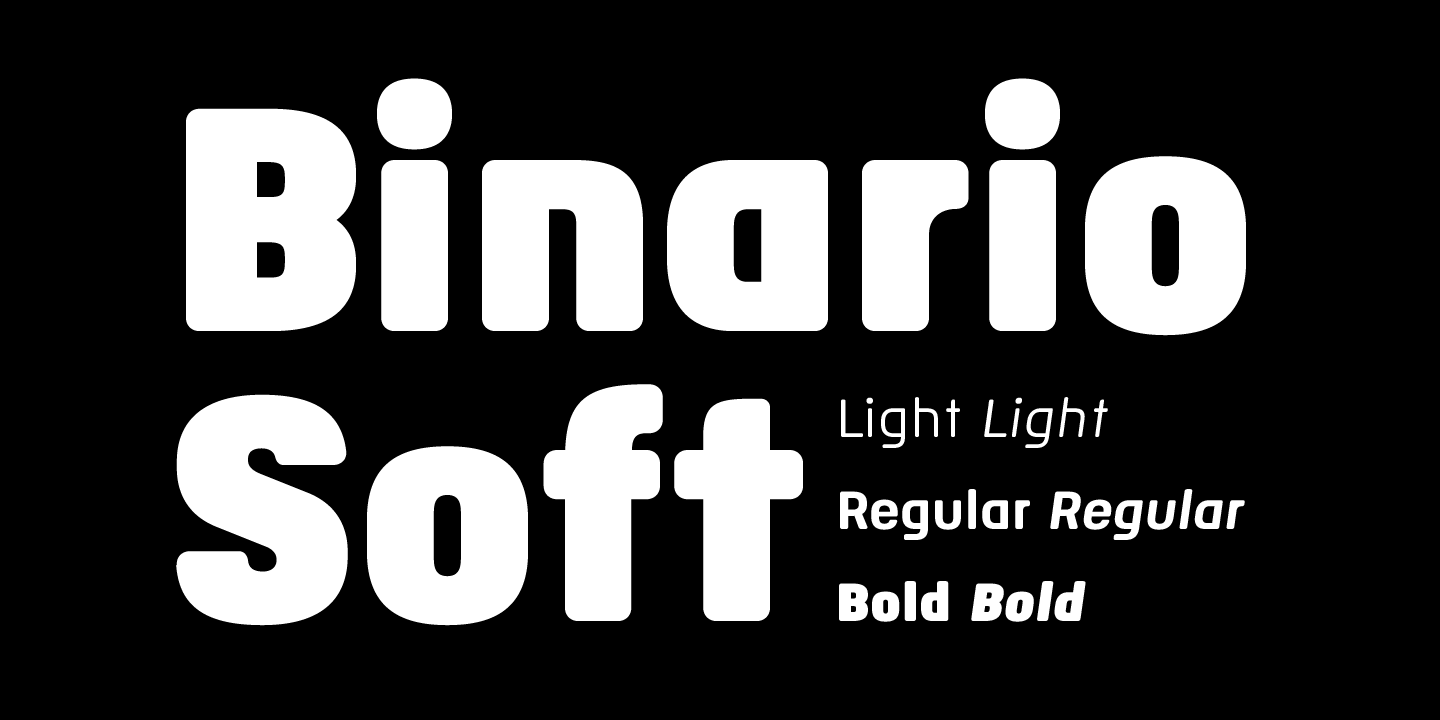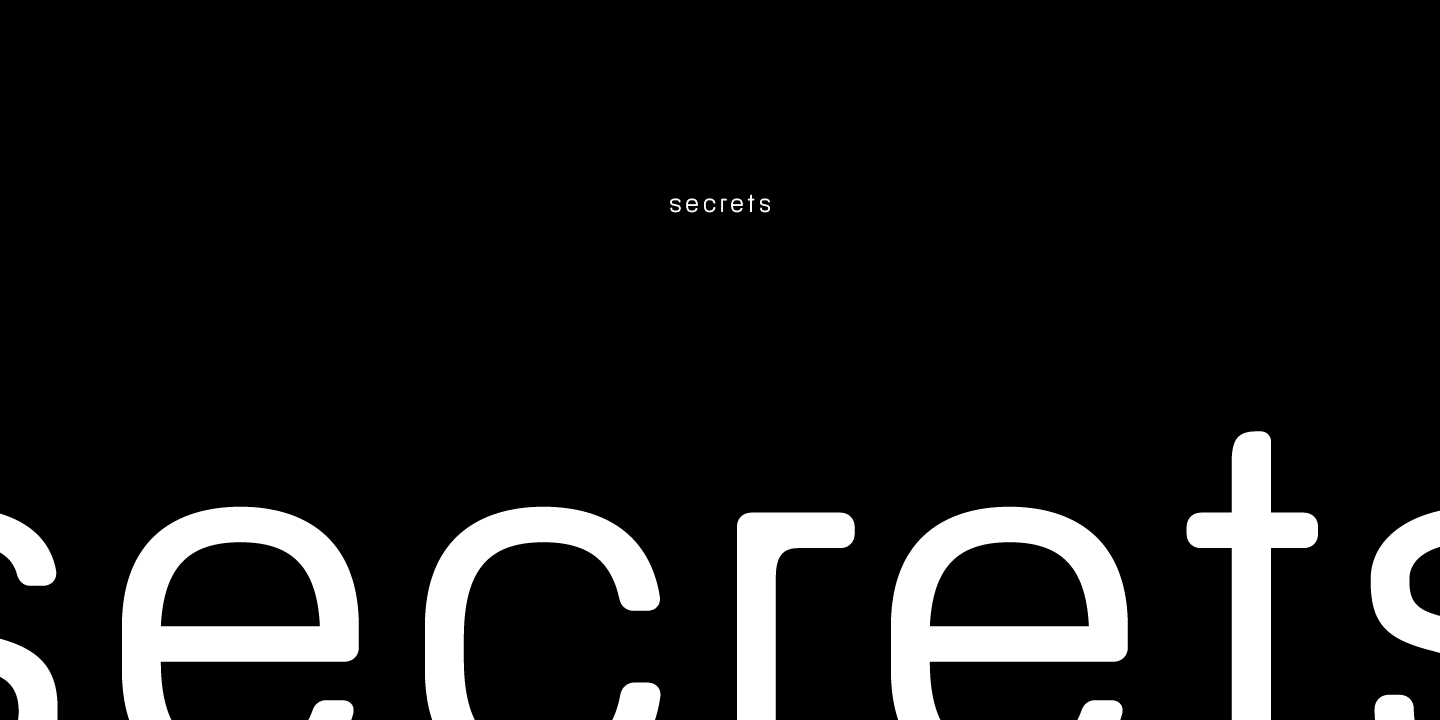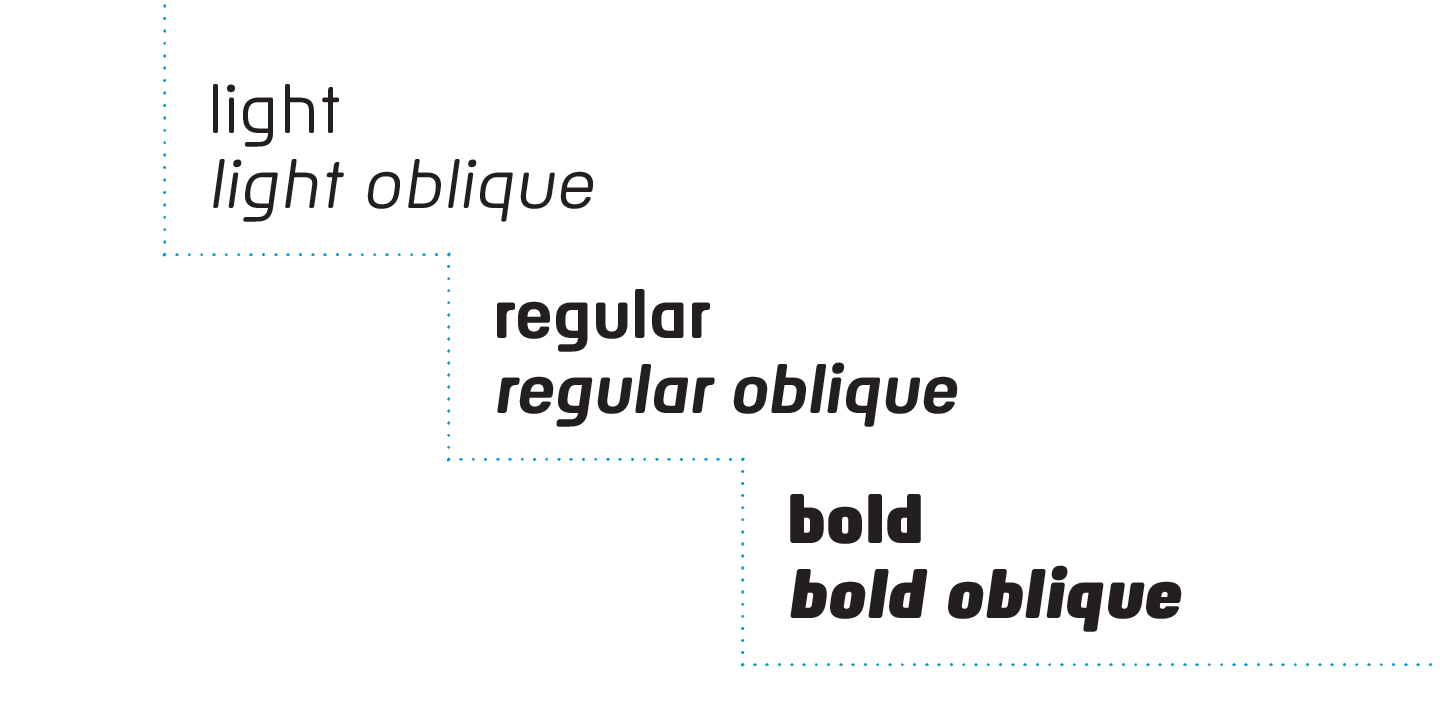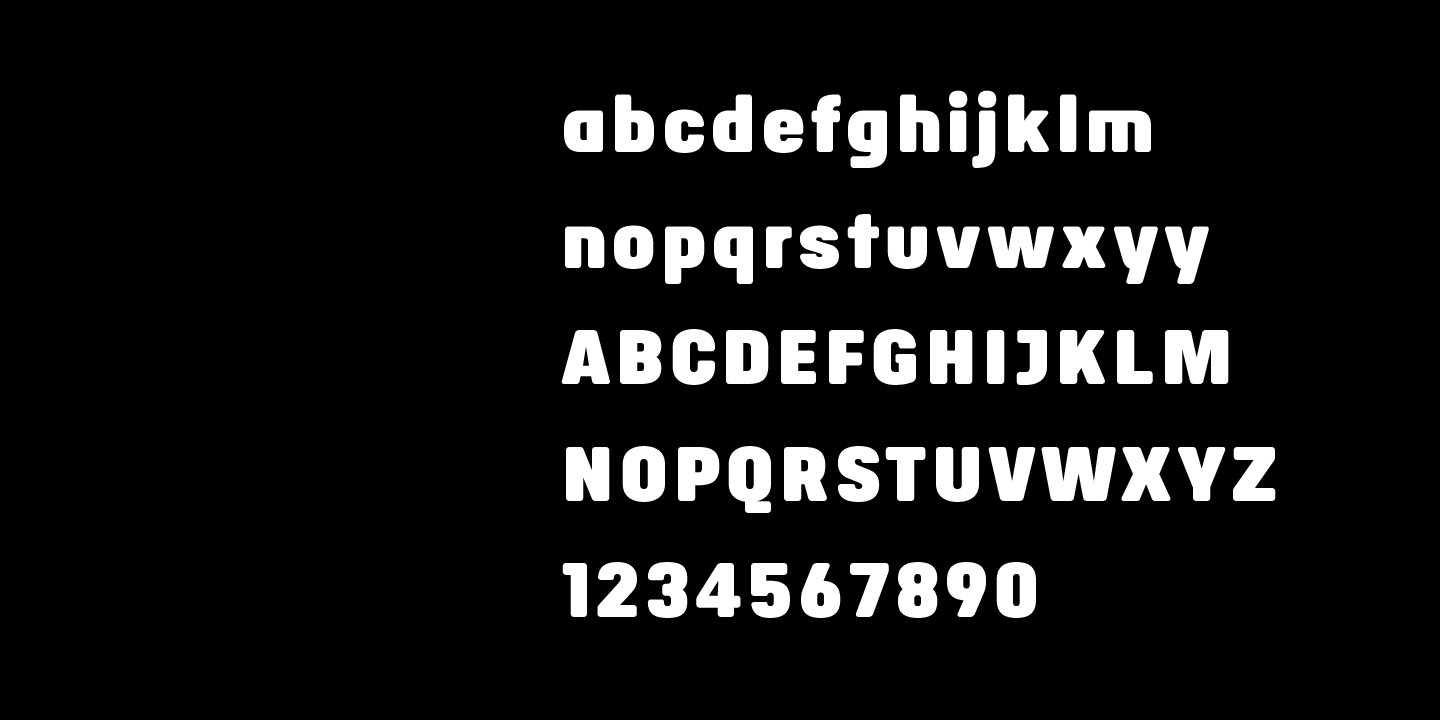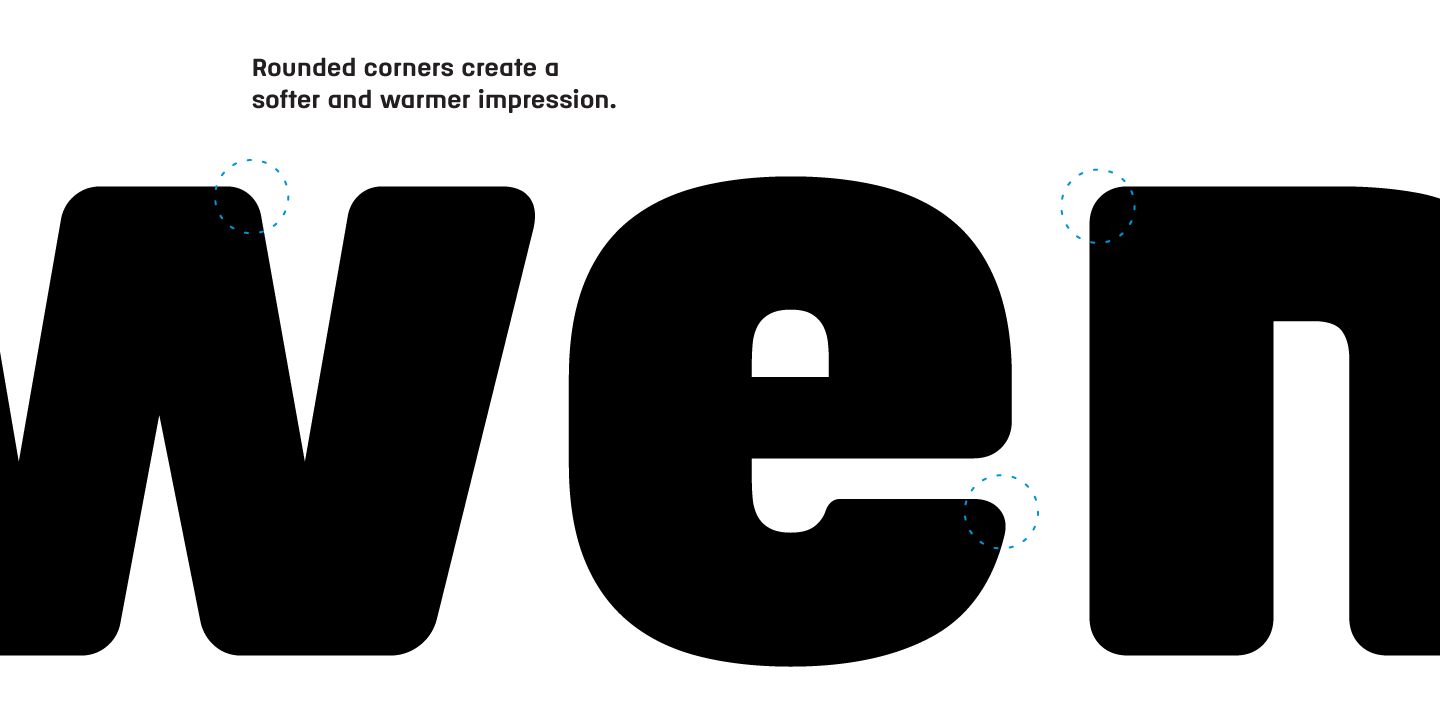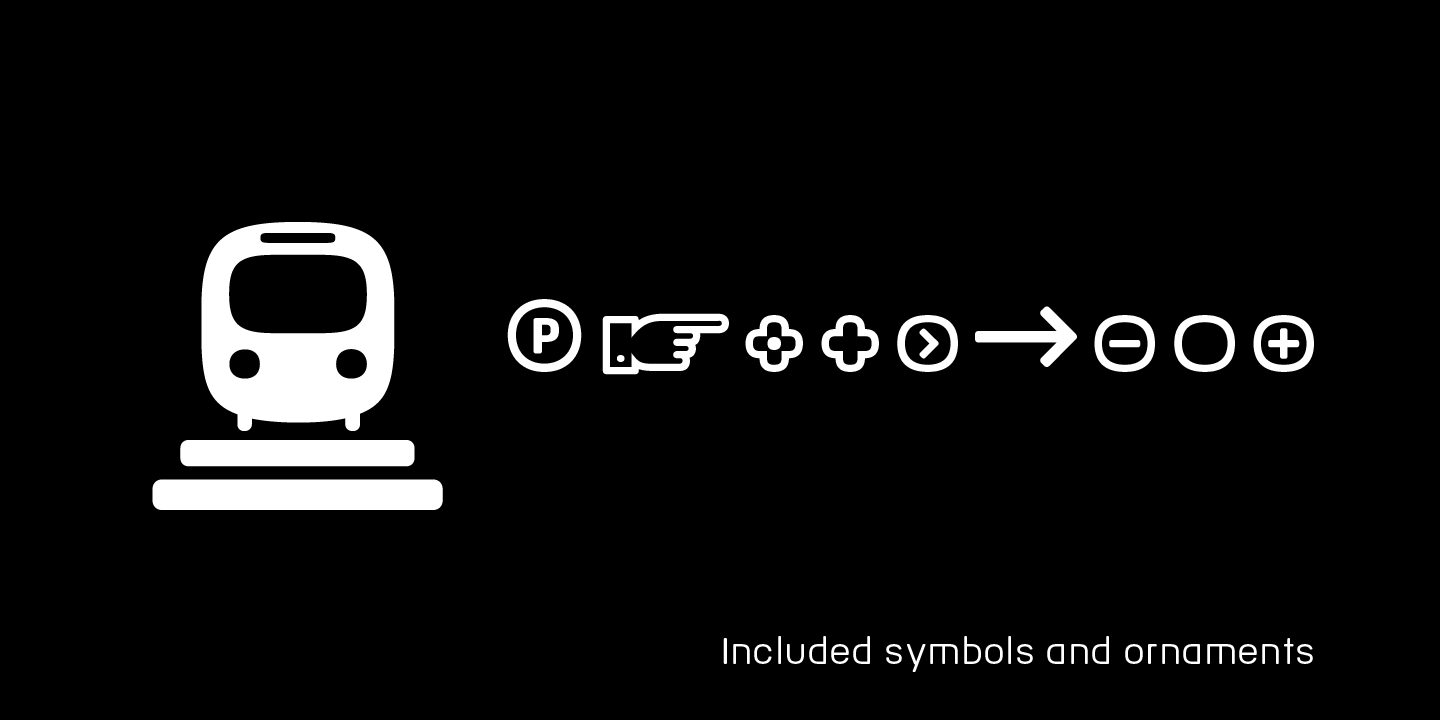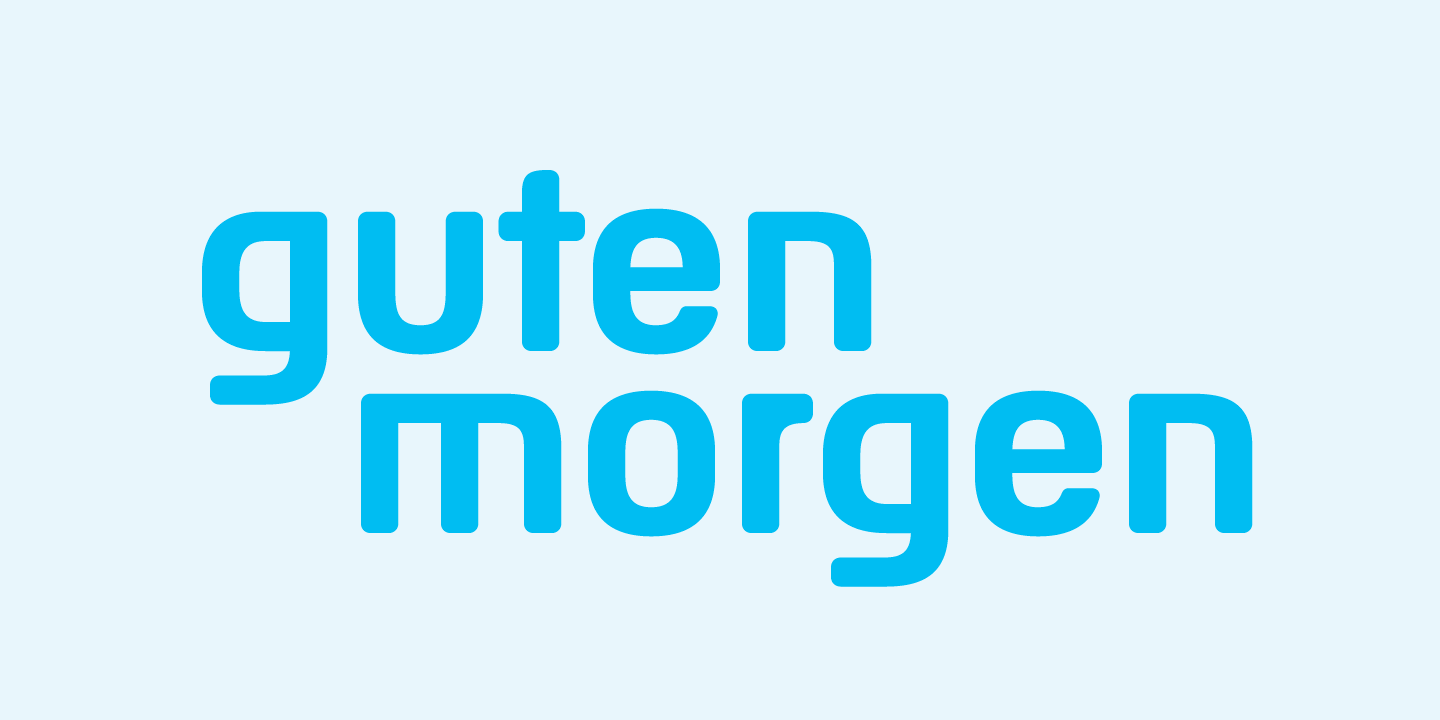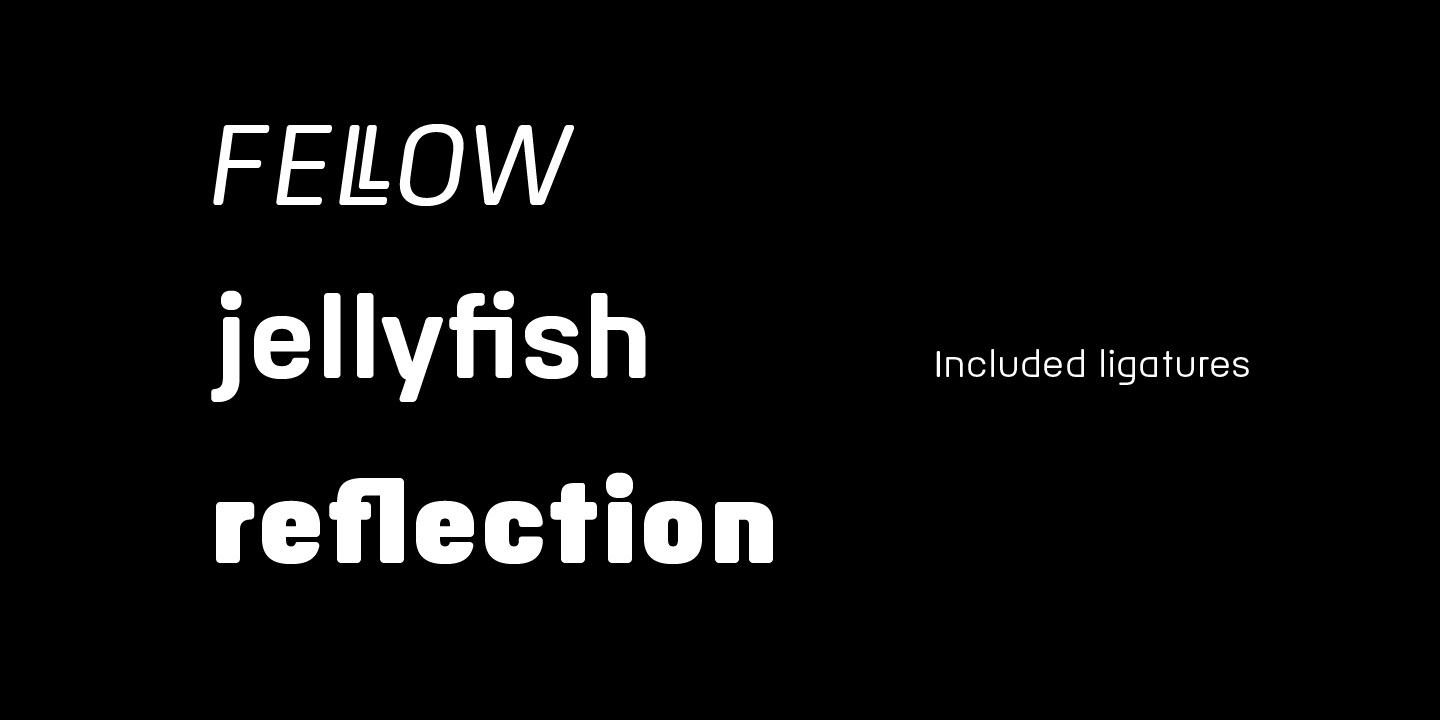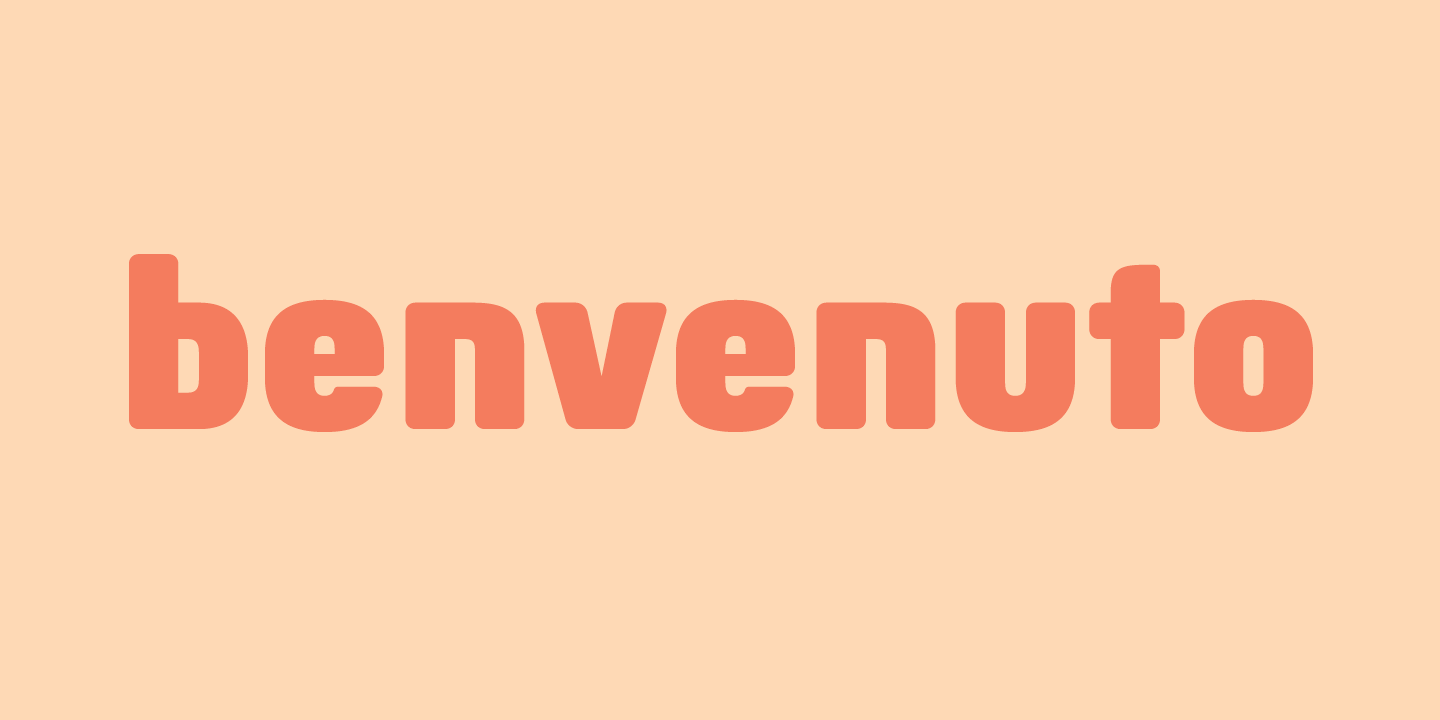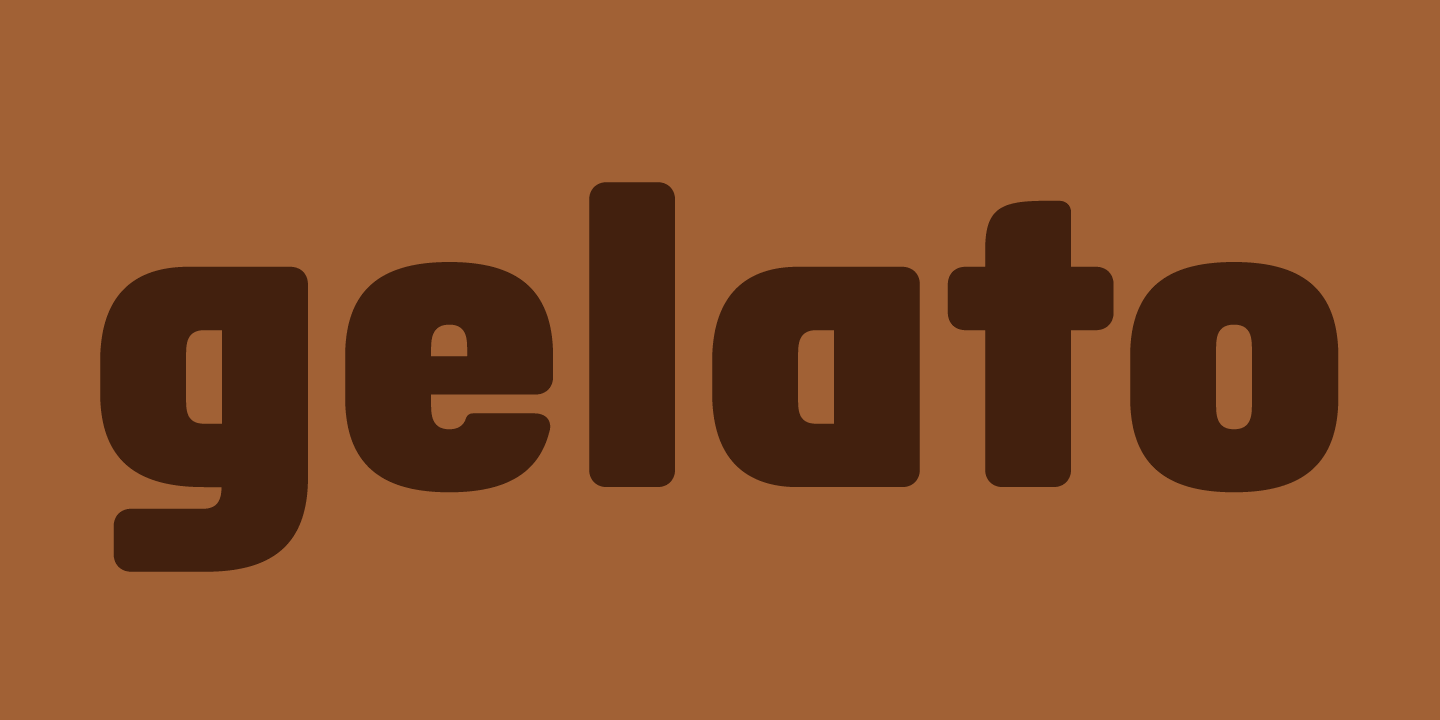
Binario Soft
Binario Soft is a geometric sans serif typeface with subtly rounded edges to give a softer and warmer impression. It comes in three weights (light, regular, and bold) with matching obliques. Its simple, compact, and tightly cornered forms lend themselves well to screen-reading.
Italian Art Deco and early 1900s advertising and shop signage were the inspiration for Binario. It also to pays homage to early modernism's optimism, modularity, and efficiency. The shape of the rounded counters are based on the curve of the classic Roman arch. The bold has a vertical emphasis and is suitable for headlines or large body text. The light is more open and provides a nice pairing to the regular or bold weights as body text or as large display text. It comes with a small set of dingbats; an arrow, a printer's fist, a train, some flowers, and several interface icons.
Binario Soft is a gently rounded version of Binario, which is also available on this vendor's website.